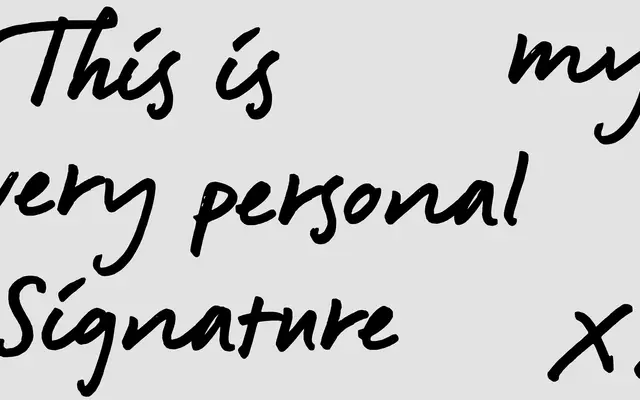
Signature
A digitised casual handwriting face from A2-Type, characterised by loose, lively letterforms with a handcrafted feel.
Drawn from hand lettering rather than formal calligraphic tradition, this single-weight script sits at the informal end of the spectrum. The foundry itself notes its liveliness, directing users who want something more structured towards their Kursiv face. Available in a single Regular weight, it suits packaging, branding and editorial contexts where an authentic handmade quality is needed.
Signature is a digitised handwritten script, described by the foundry as loose, quirky and handcrafted, placing it firmly in the casual or informal script category rather than formal calligraphic styles.